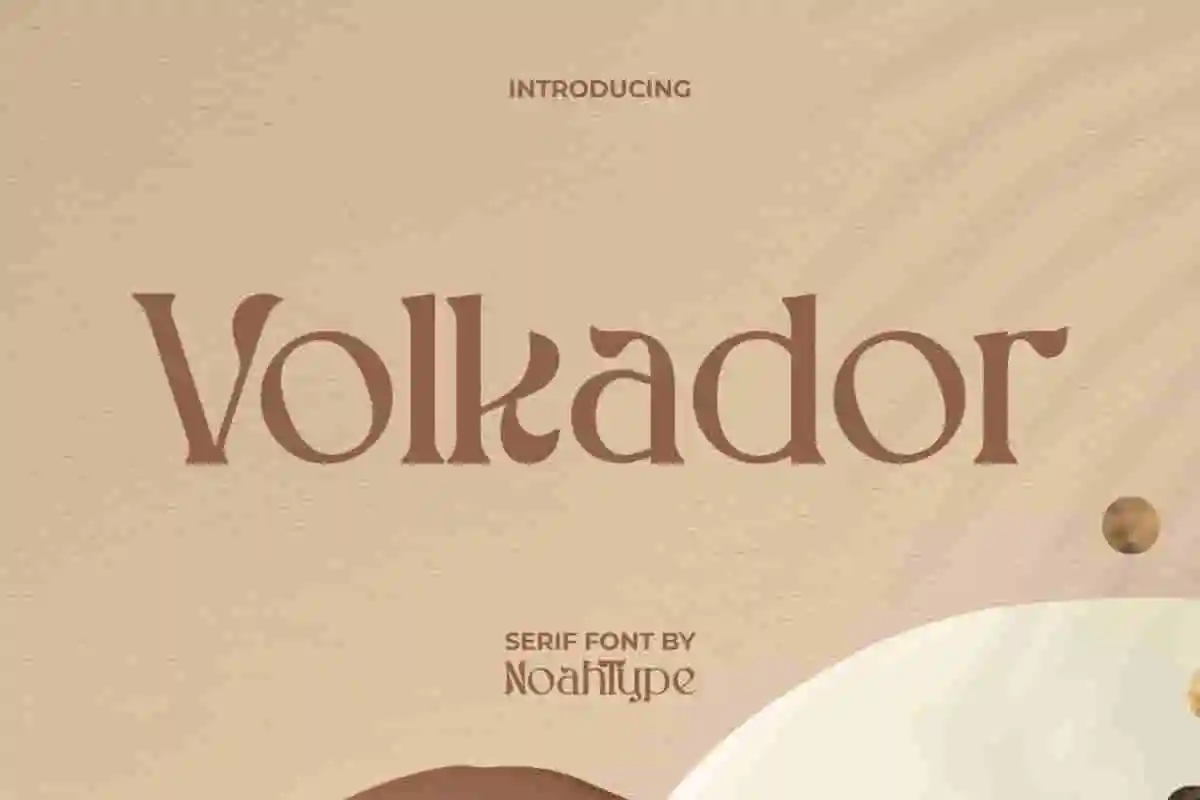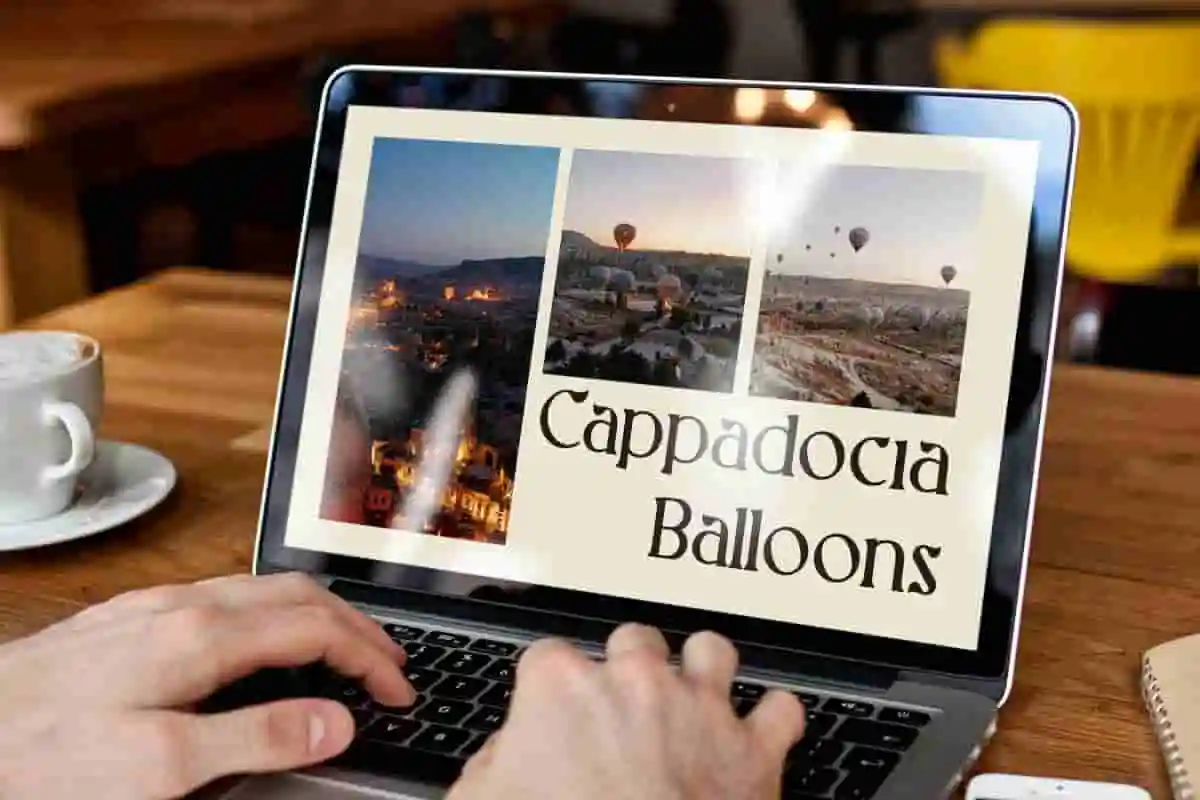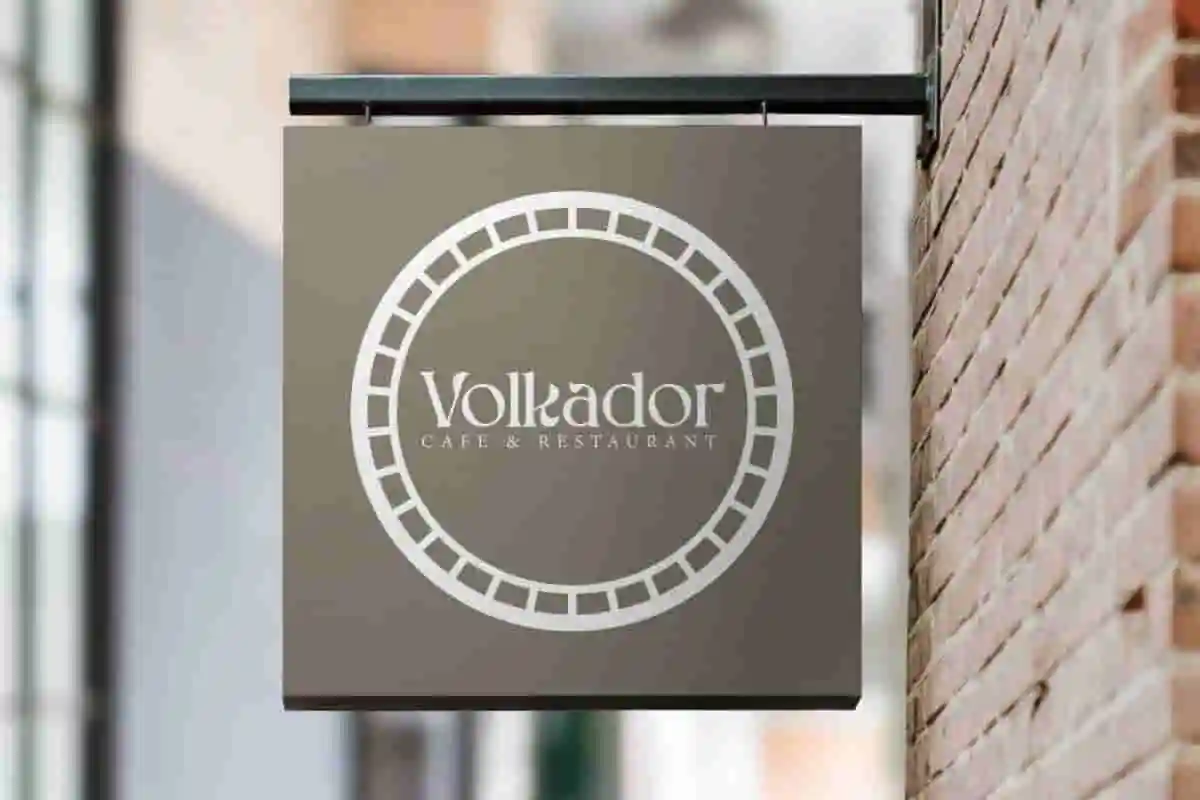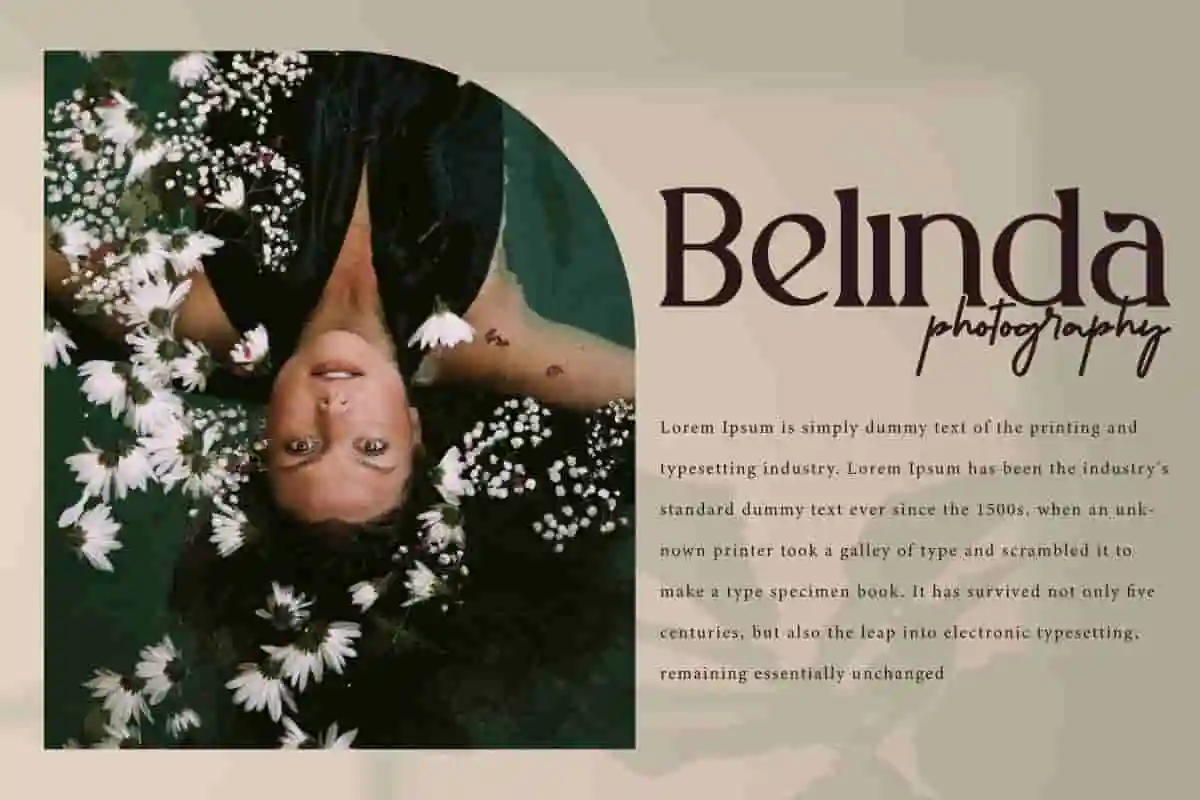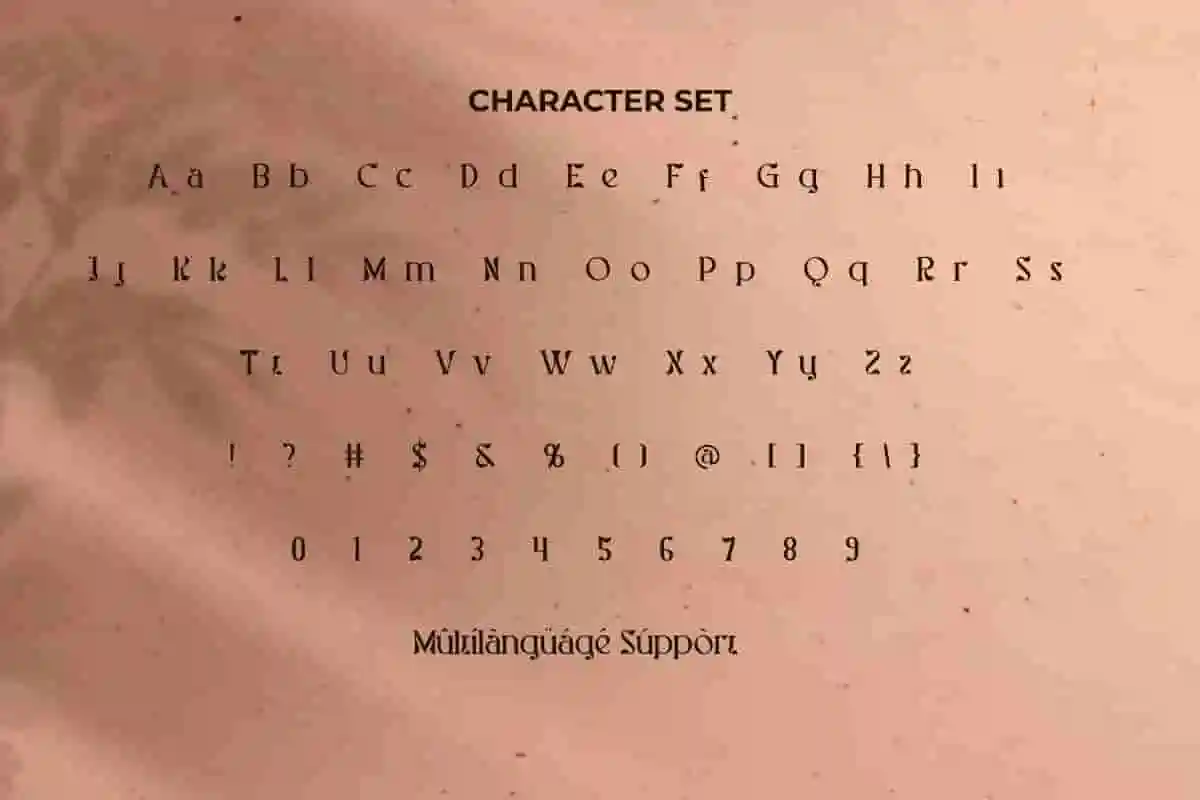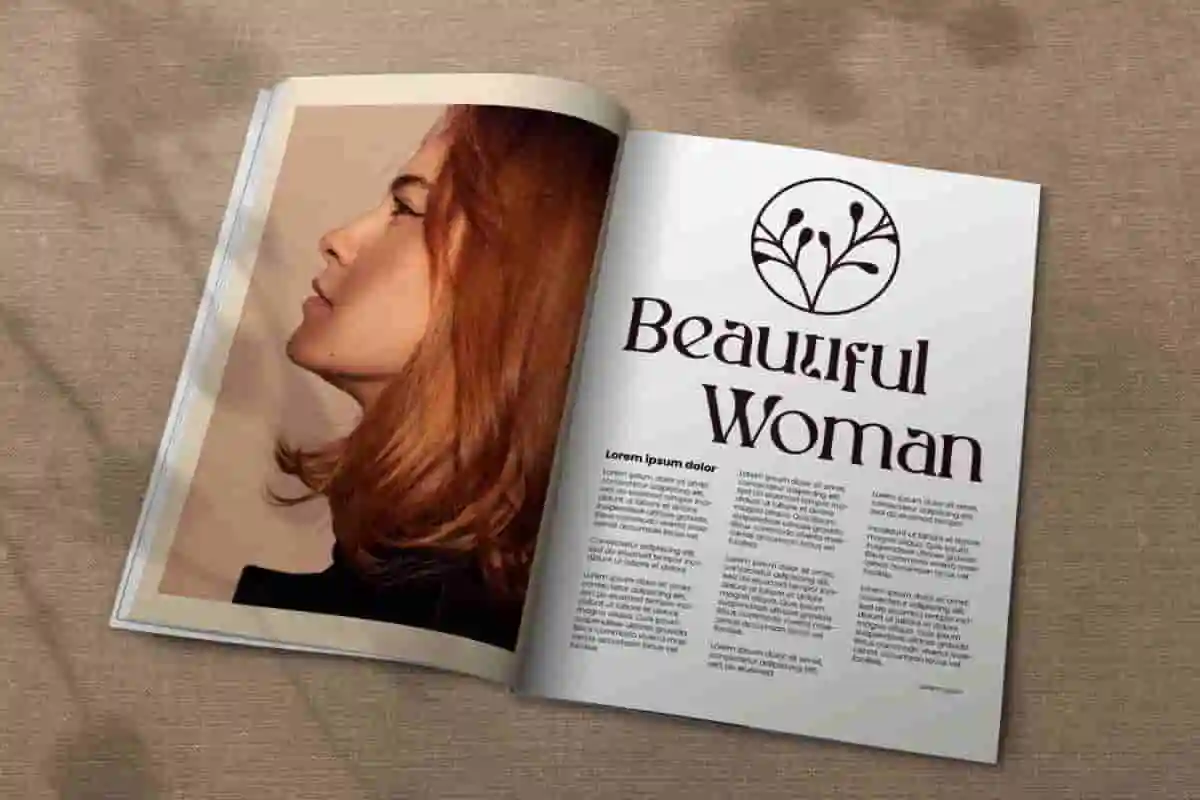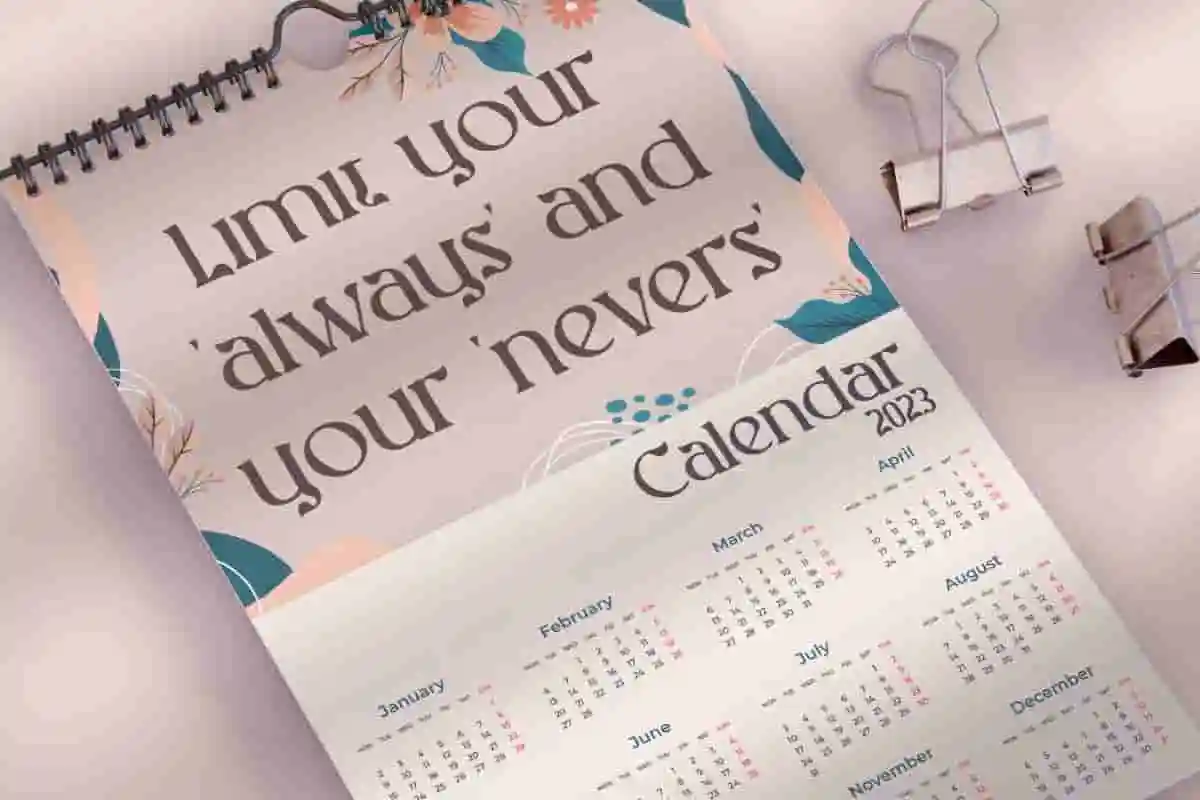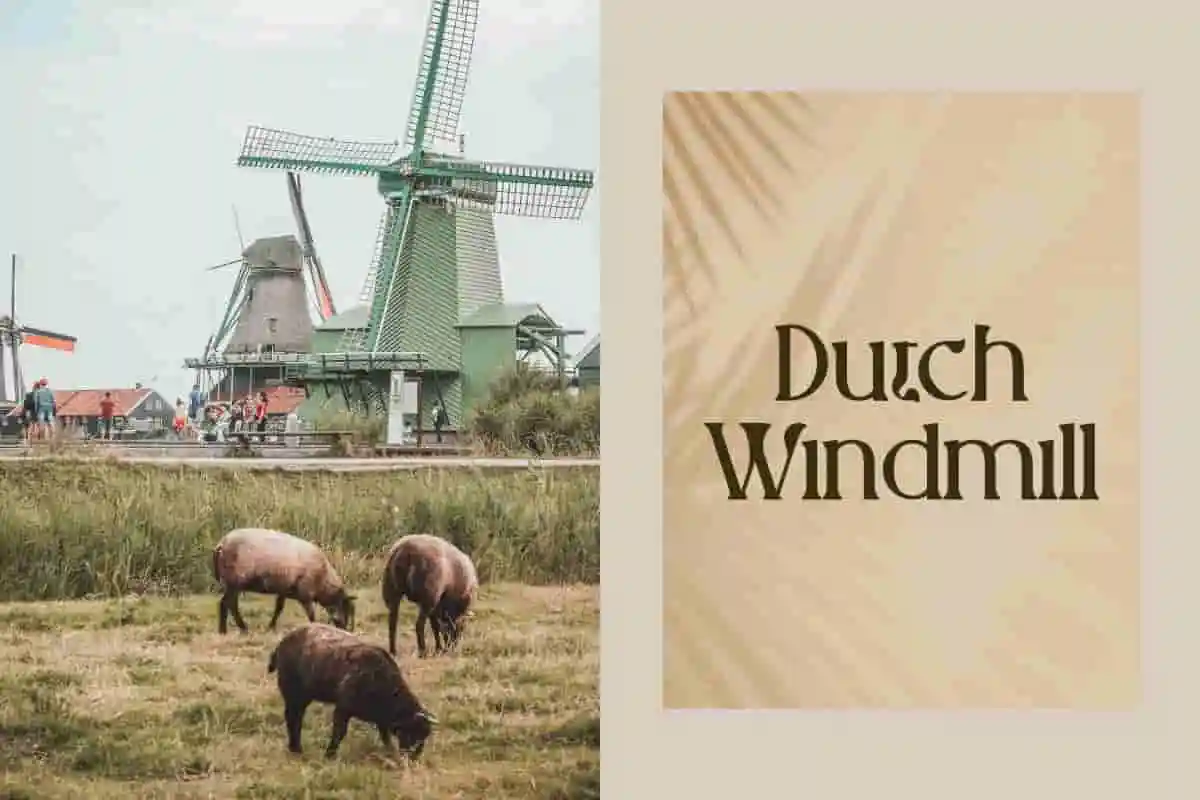
Volkador Font is a sophisticated serif display font with gorgeous letters. The uniqueness of this font makes it unlimited for use in various types of designs. It will be good for any designs, such as brand image, business card, catalog, custom design, invitation, label, magazine, poster, product packaging, quote, signage, stationery, website, and more!
Volkador Font includes full set of Uppercase and Lowercase Basic Characters, Numerals, Punctuation, and Symbol. The characters of this font will give your design stunning looks and perfect choice for many industries, such as advertisement, beauty product, café, event or wedding organizer, fashion, perfume, printing, publishing, spa and salon, etc.